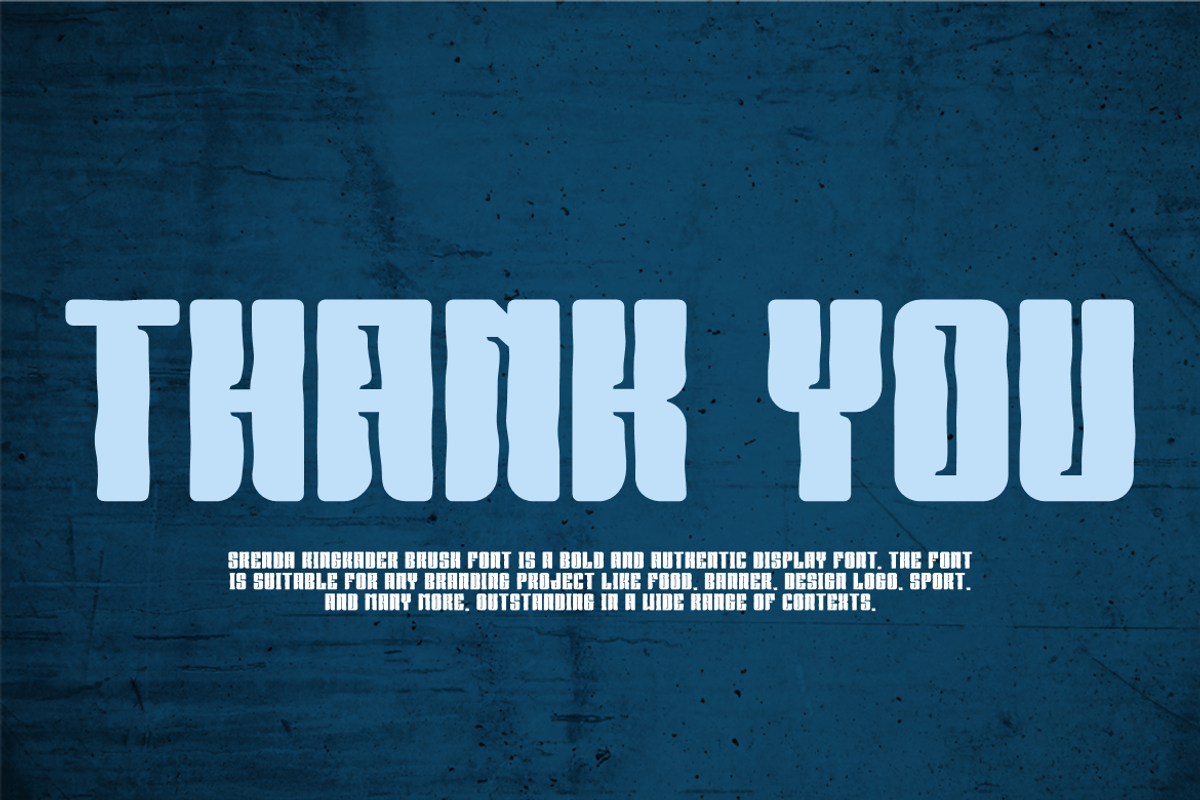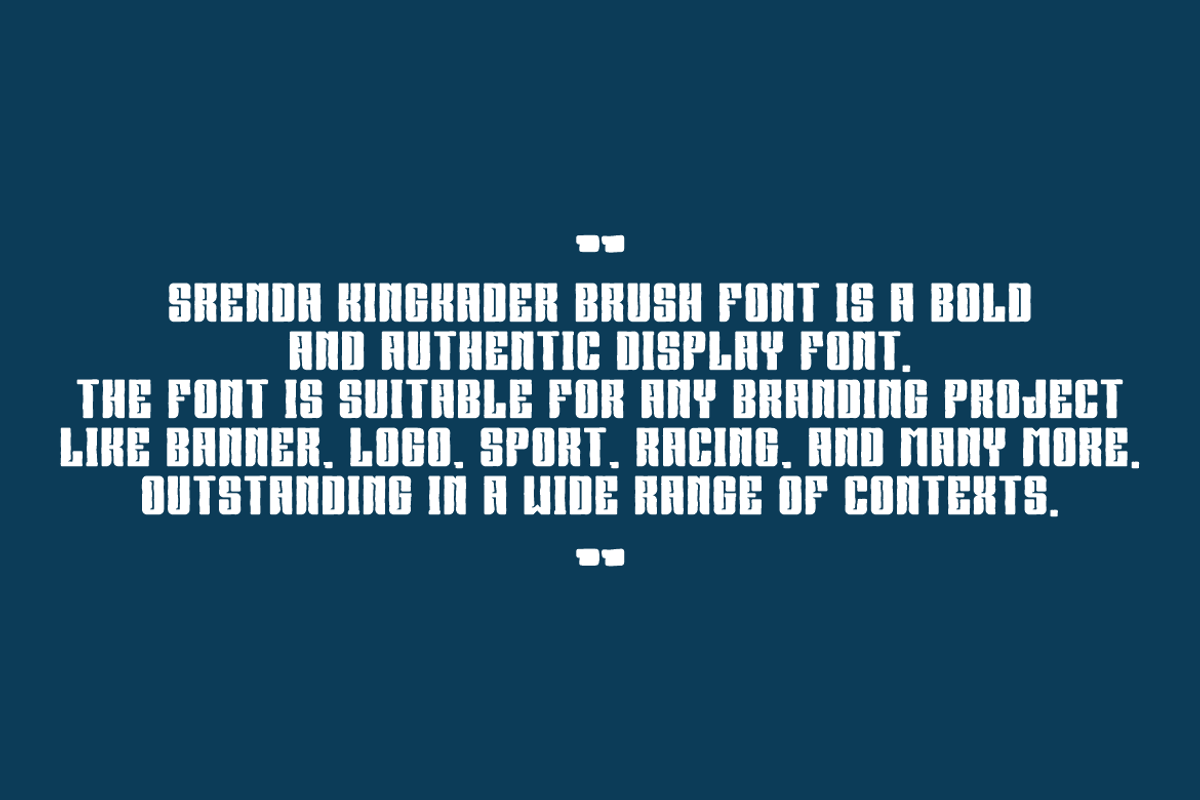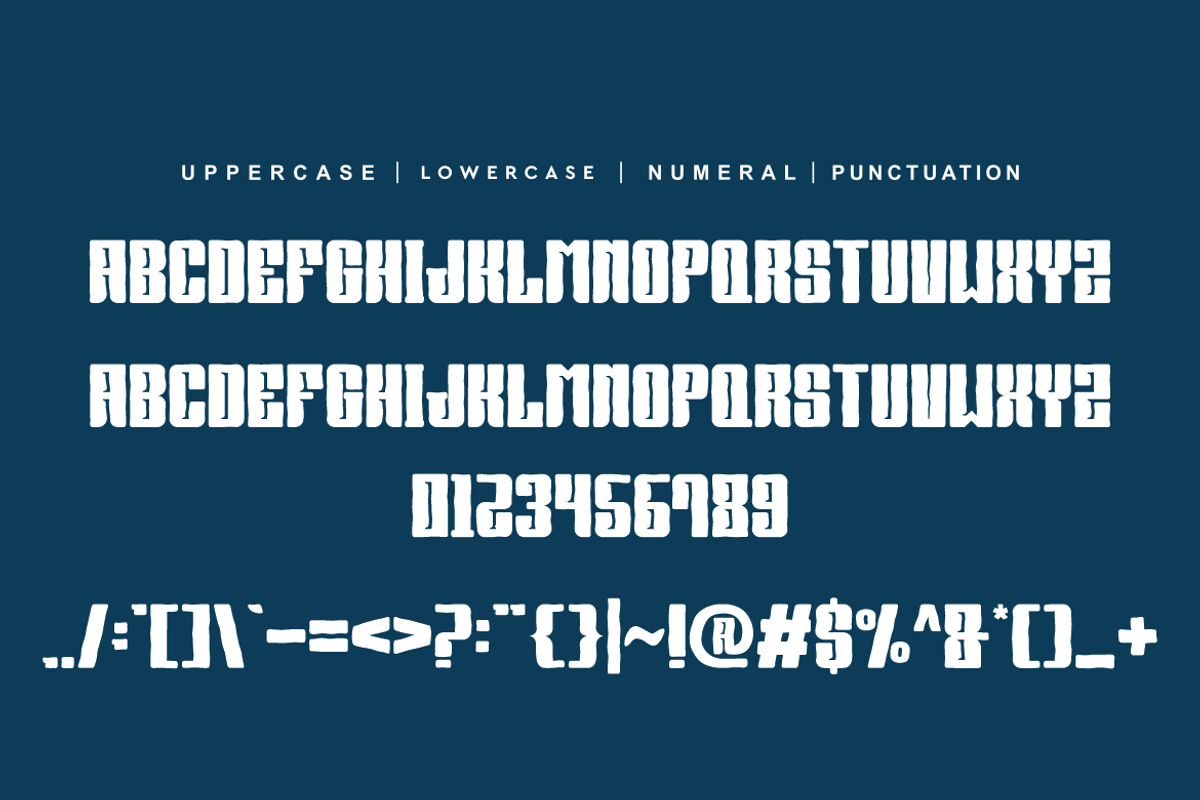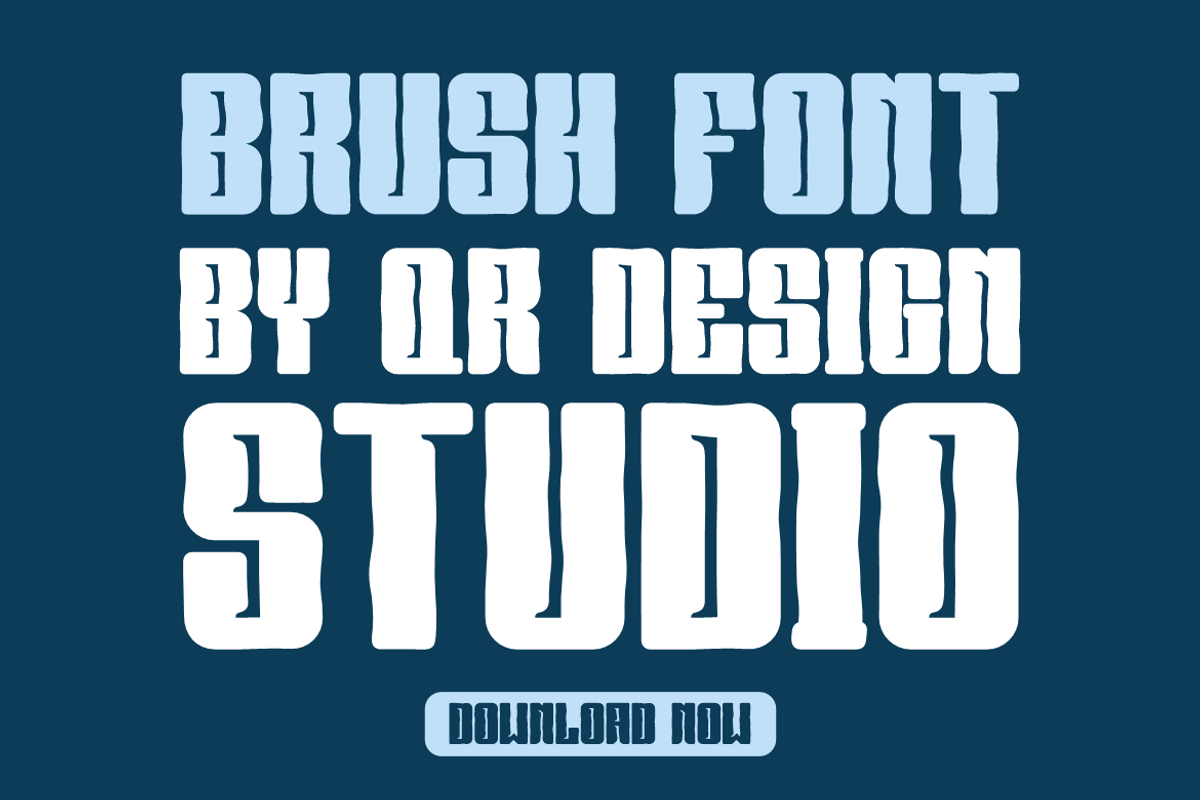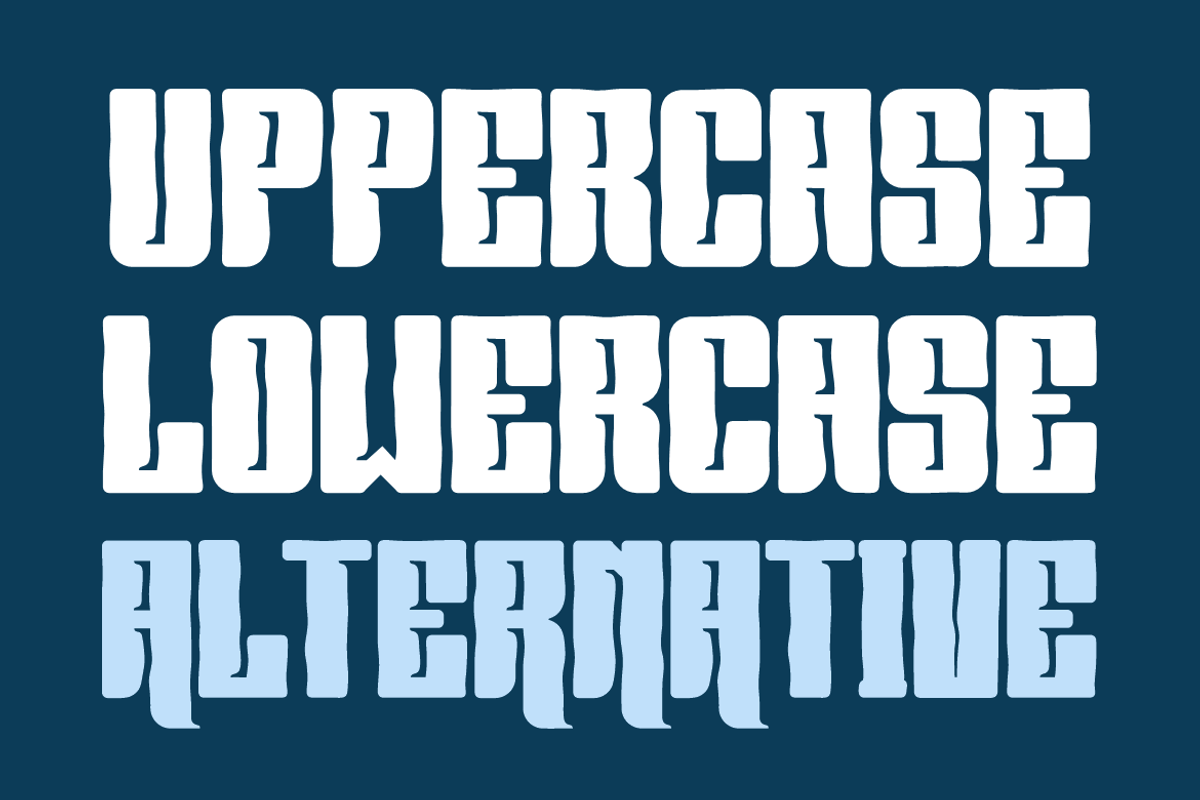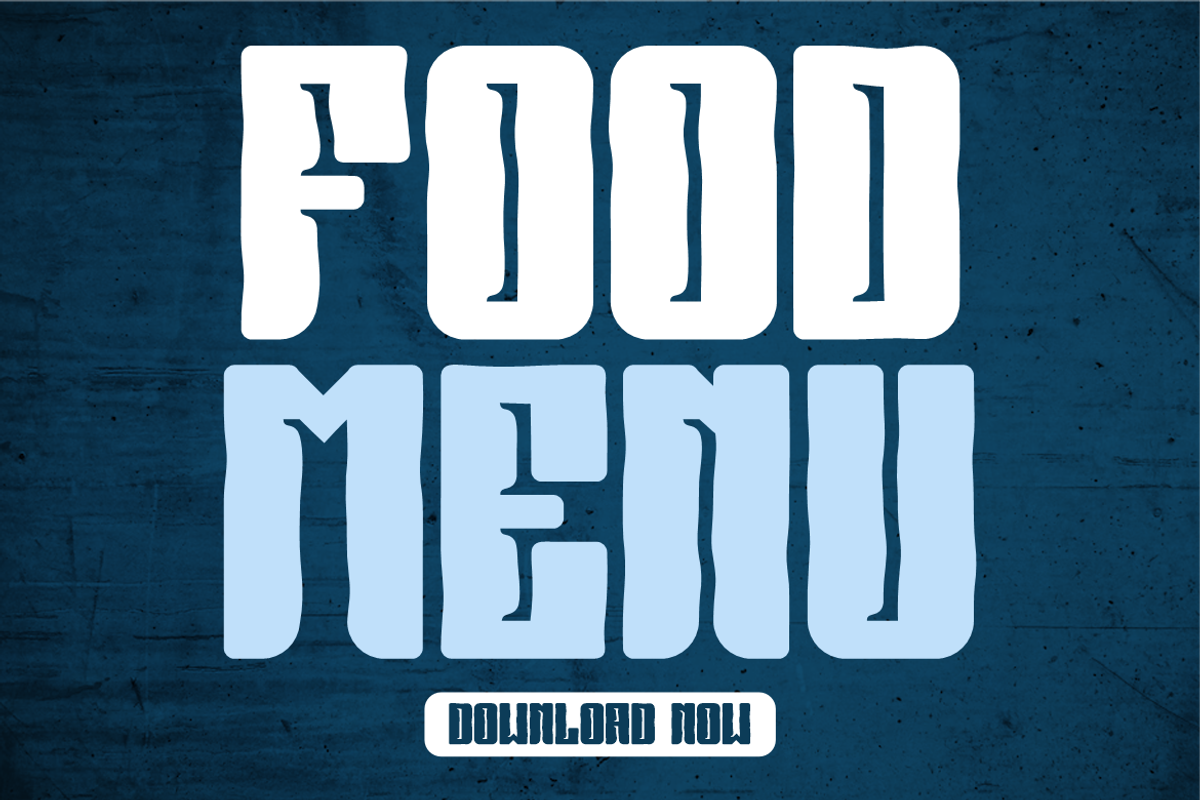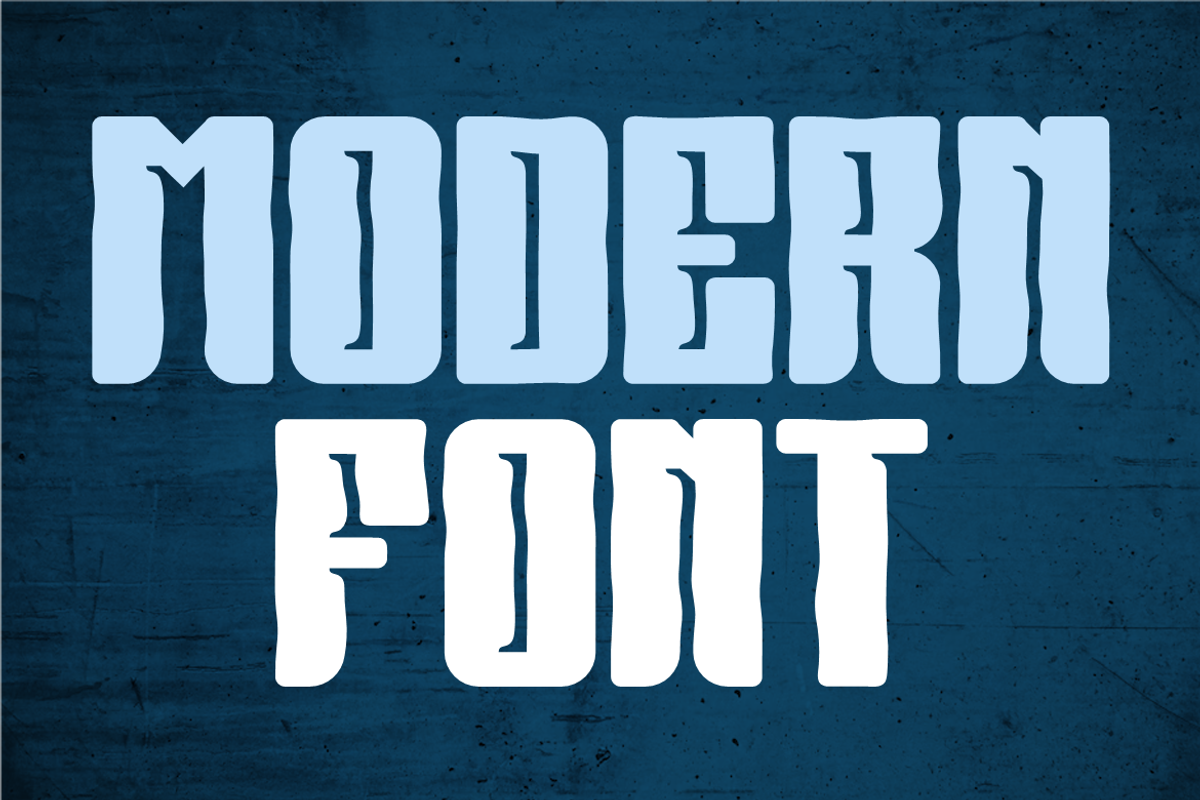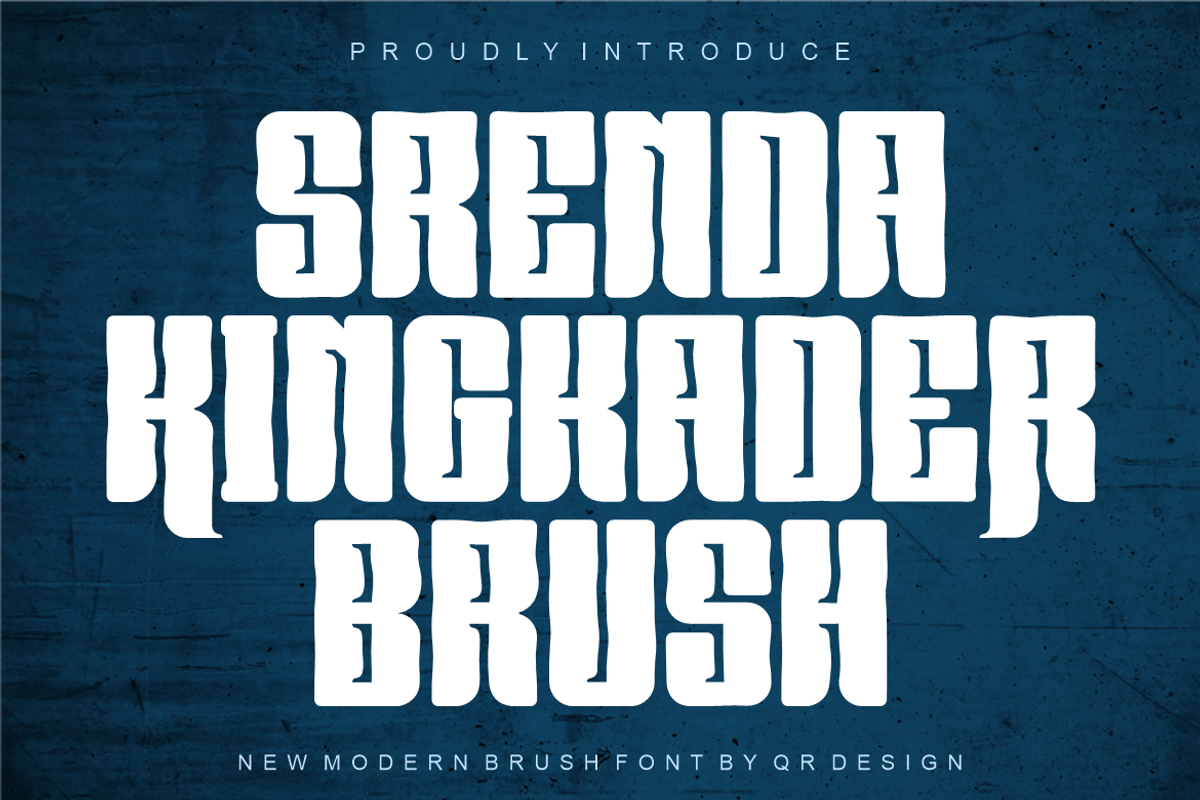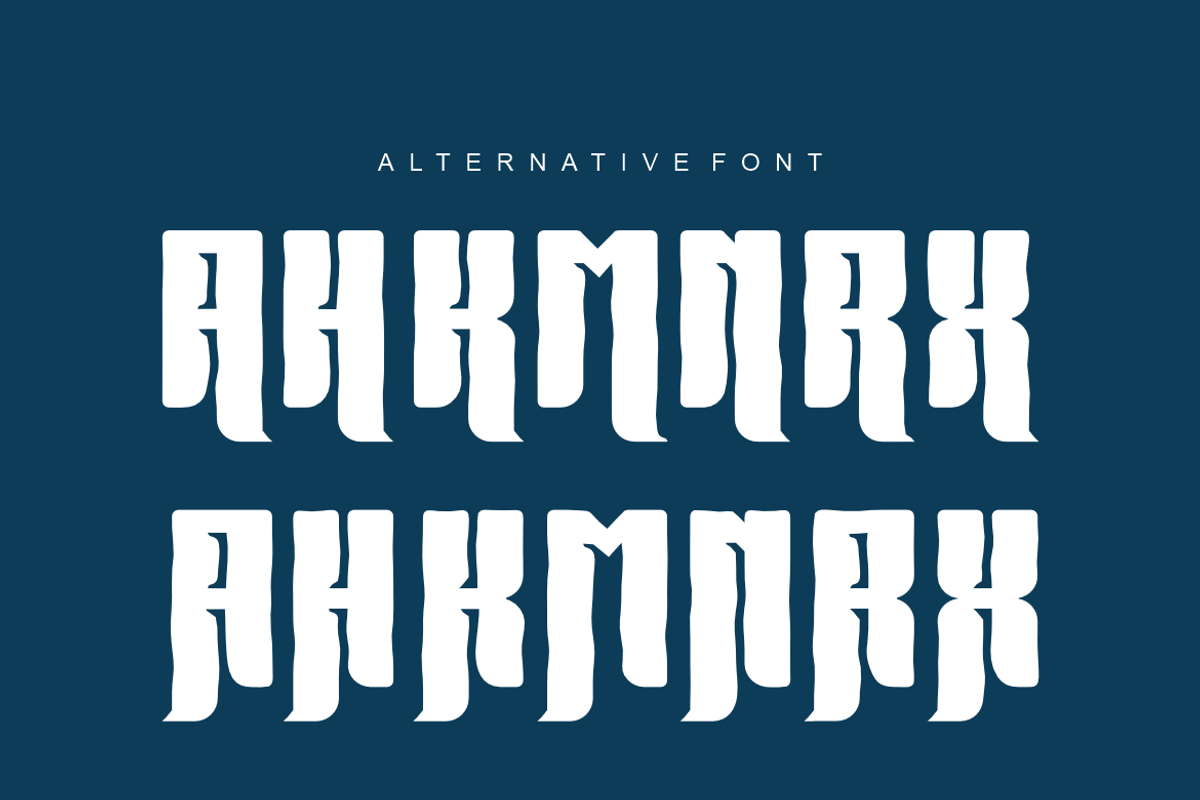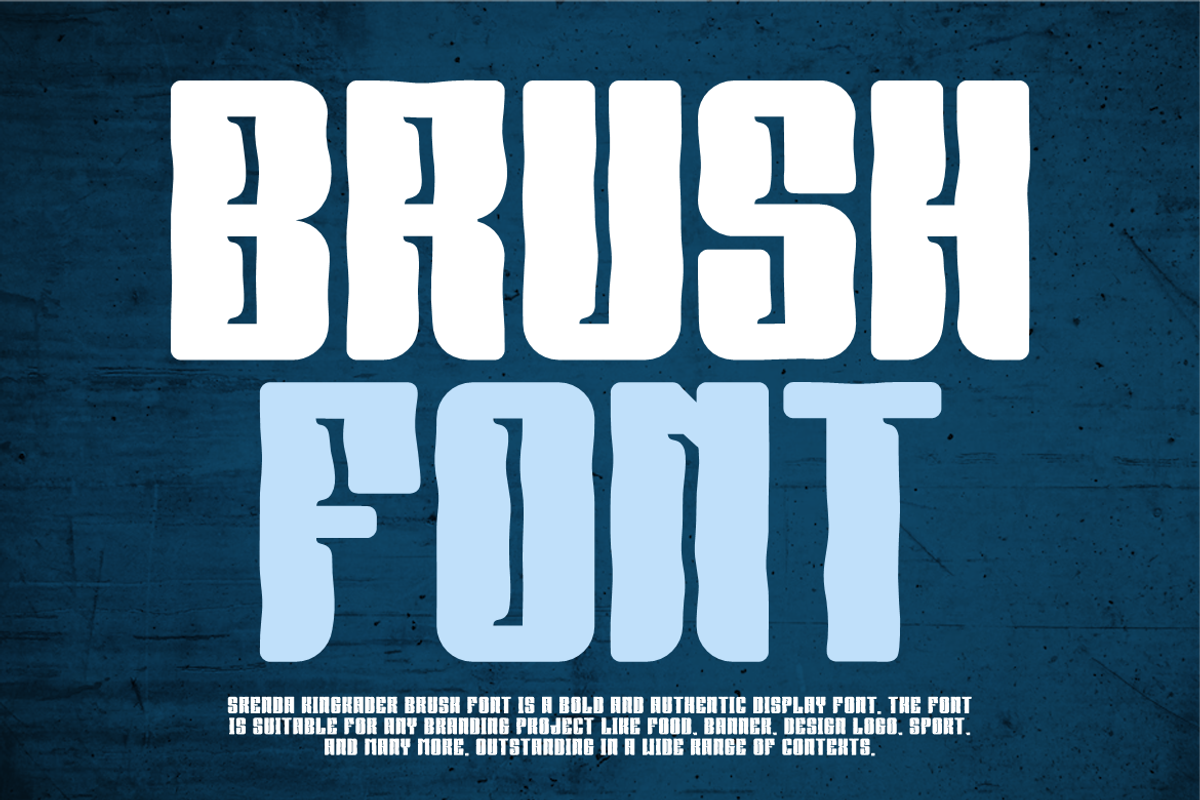
Srenda Kingkader Brush
Srenda Kingkader Brush Font is a bold and authentic display font. The font is suitable for any branding project like logo, sport, food, and many more. Outstanding in a wide range of contexts.